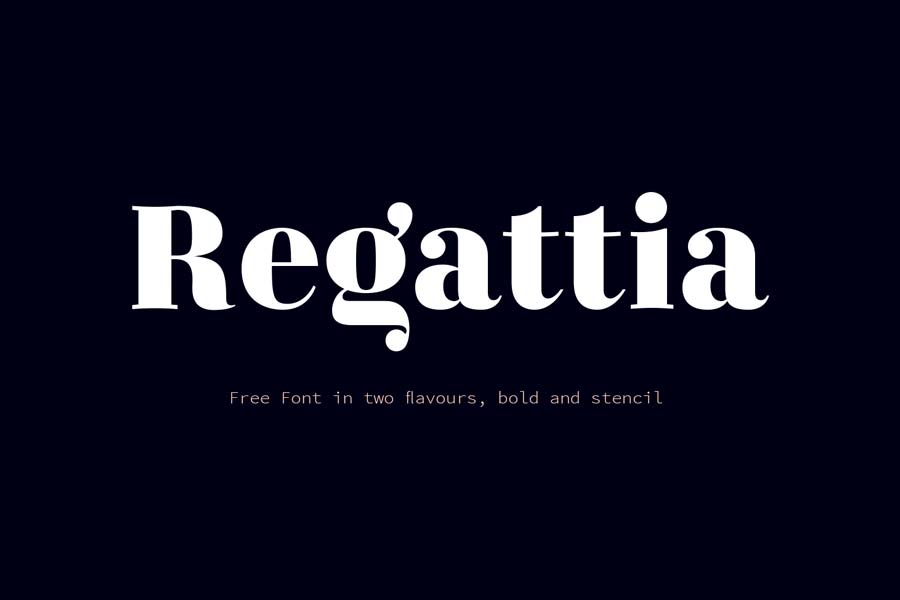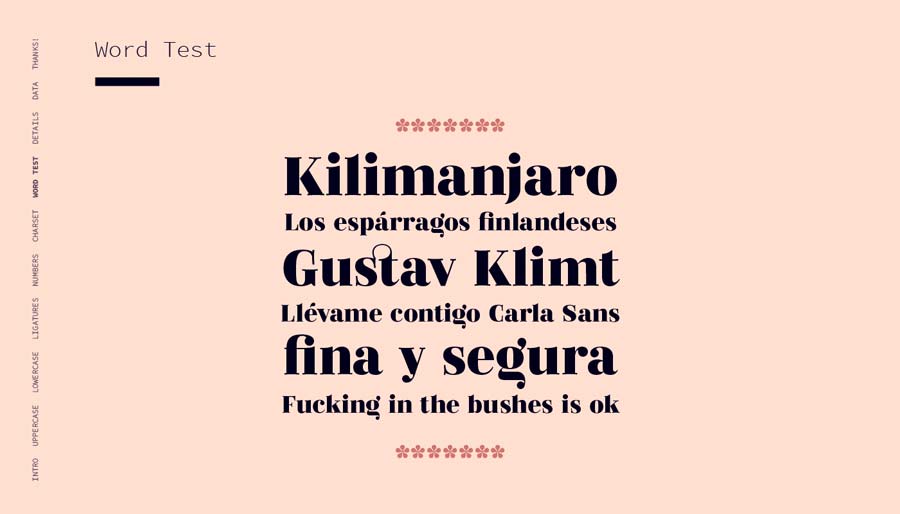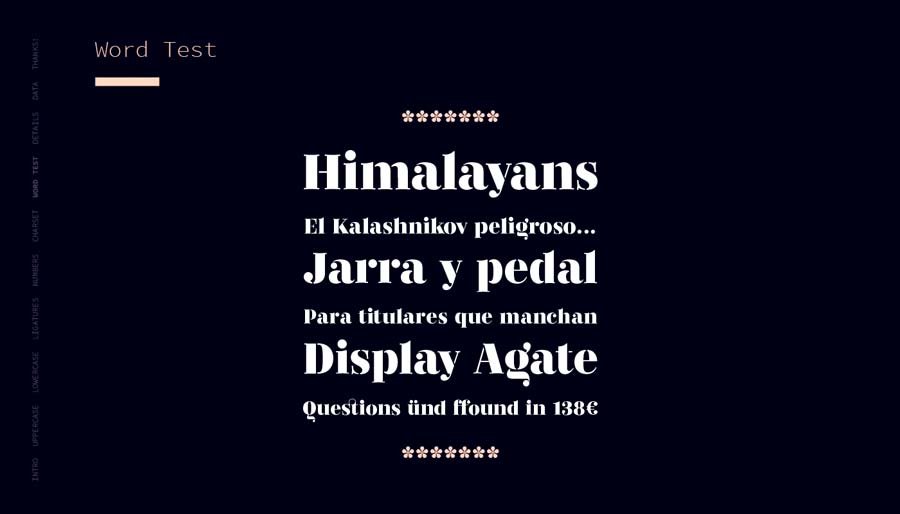
Regattia is a didone style display font that comes with regular and stencil styles. It features fat and dramatically high contrasty strokes, which is suitable for big headlines for print and digital designs, and great as logotype too.
Regattia comes with lowercases and uppercases, and also extended Latin character set with ligatures too. You can use this font for your next logo, branding or poster designs, and they will be definitely look good with this font.